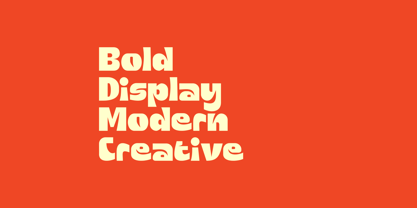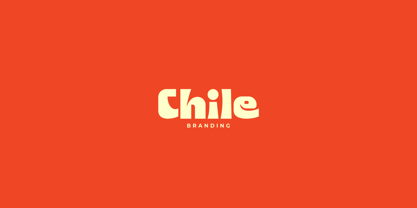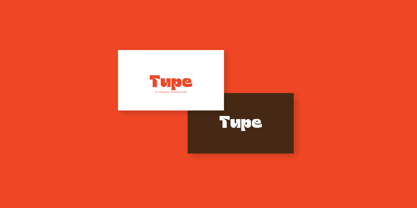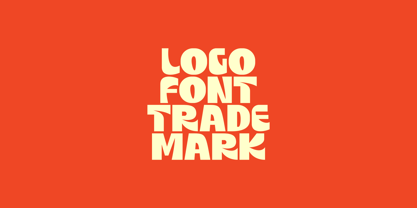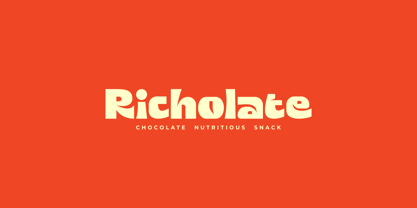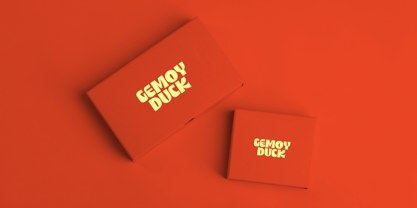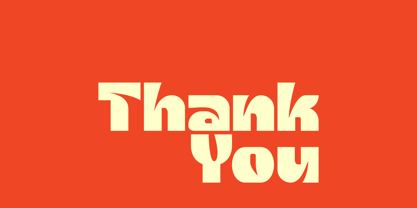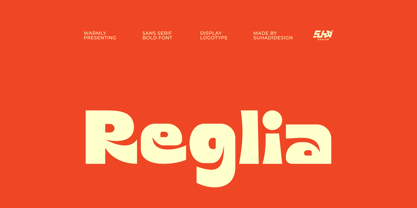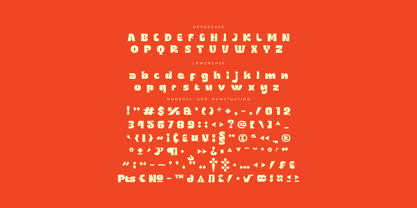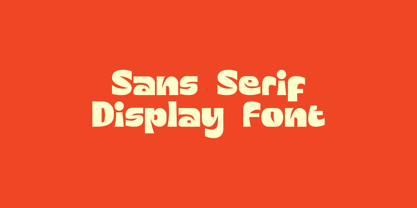
Reglia
Die Schriftfamilie Reglia wurde von ahmad suhadi entworfen und von suhadidesign veröffentlicht. Reglia enthält 1 Stile. Mehr über diese Familie
Regila - Bold Display Logo Font Hey ladies and gentlemen! In response to market demand, I created a modern, cool, elegant, and handsome sans serif font. So, I decided to create this sans serif font. Regila is a sans serif display font, expected to be a market favorite. We maintain this font to be elegant, classy, ​​modern, stylish, contemporary, and easy to use. The Regila font is a great choice for magazines, book covers, shopping bags, packaging, logos, labels, fashion, posters, banners, bags, branding, brand names, quotes, and other projects. The Regila font is here to take your designs to the next level. The Regila font style will make you love design and take advantage of the cool design results of this font. Stay tuned for our font updates :) Font Features: • Capital Letters • Lowercase Letters • Multilingual Support • Numbers and Punctuation
Designer: ahmad suhadi
Foundry: suhadidesign